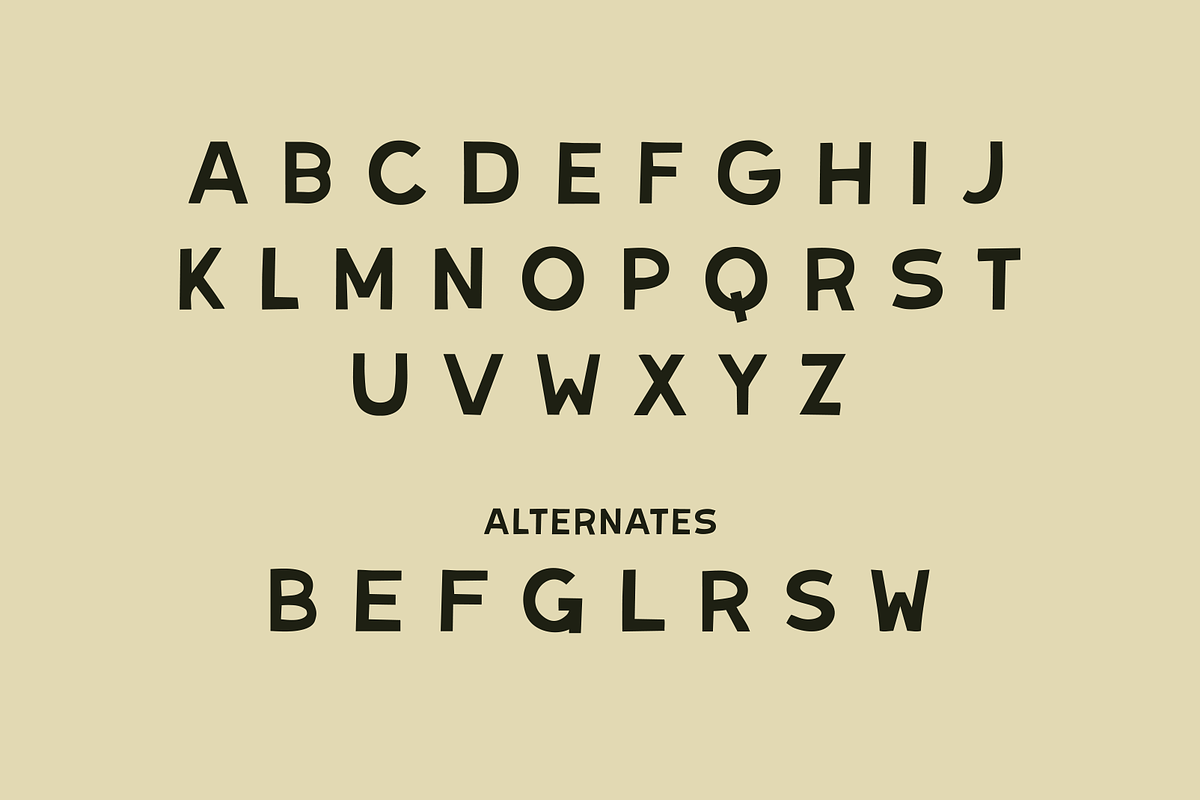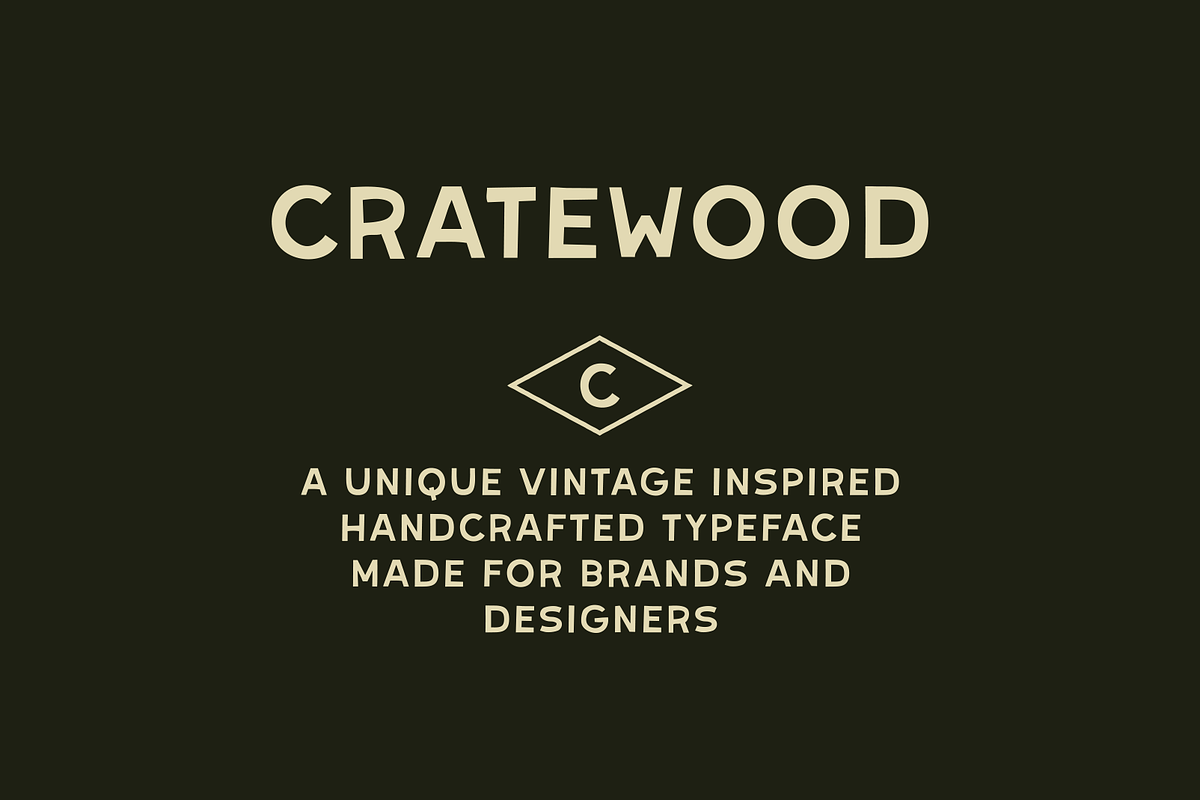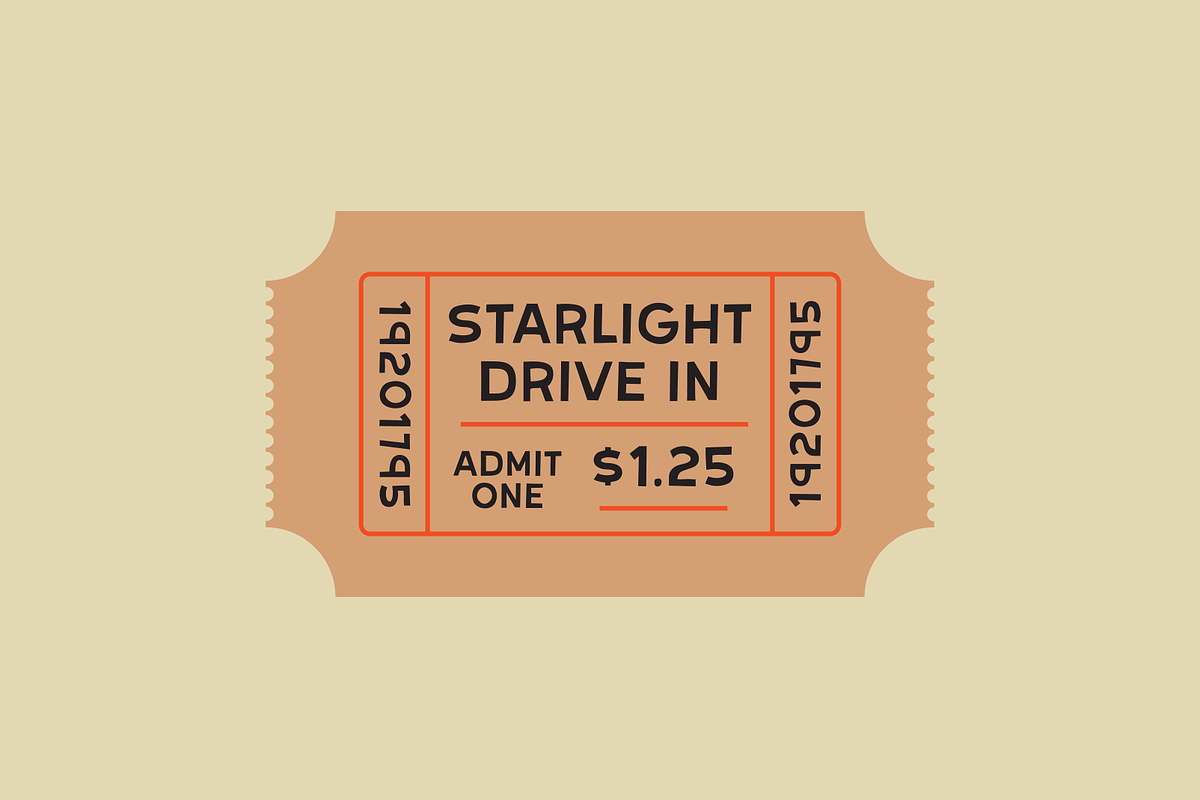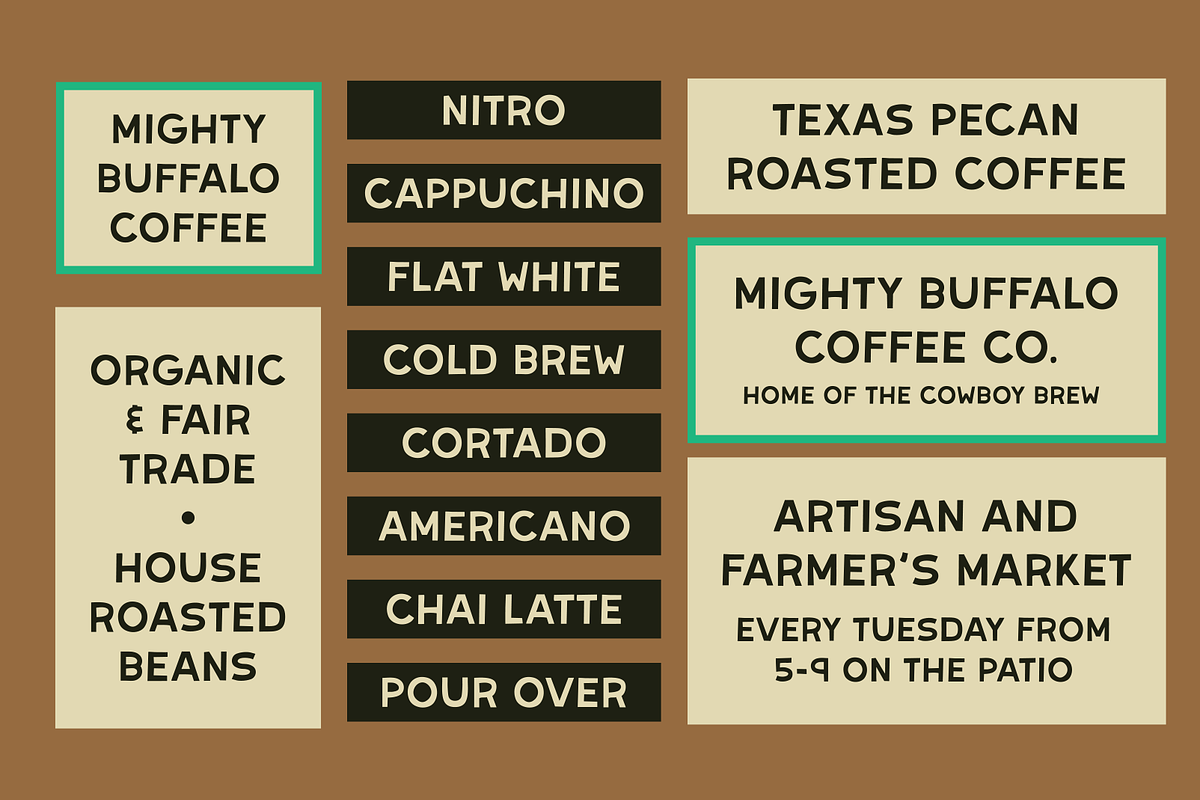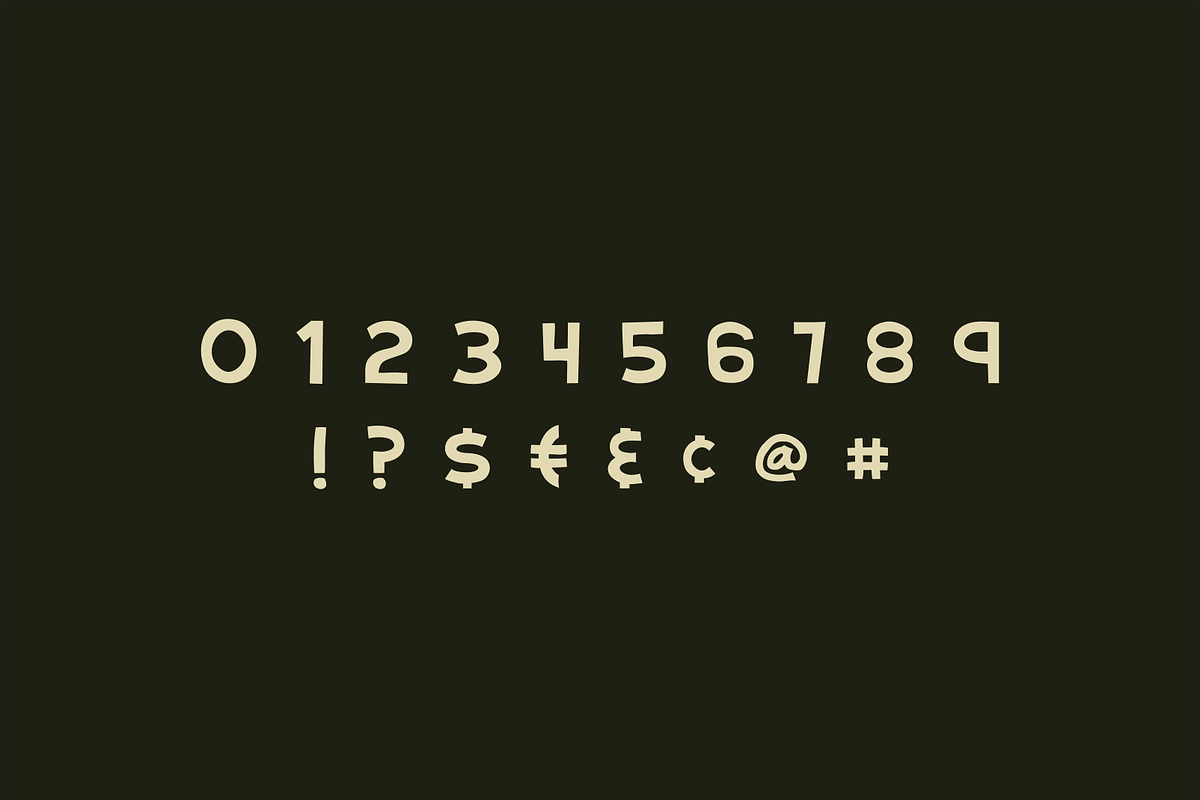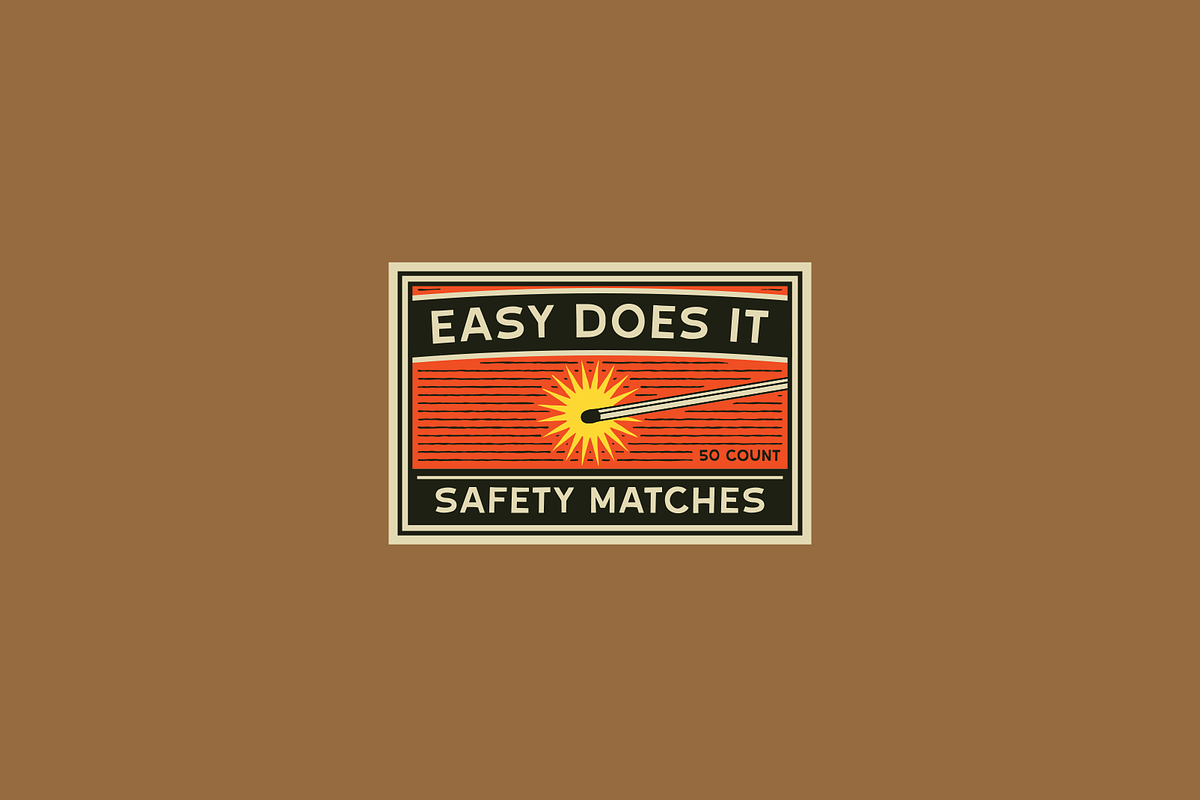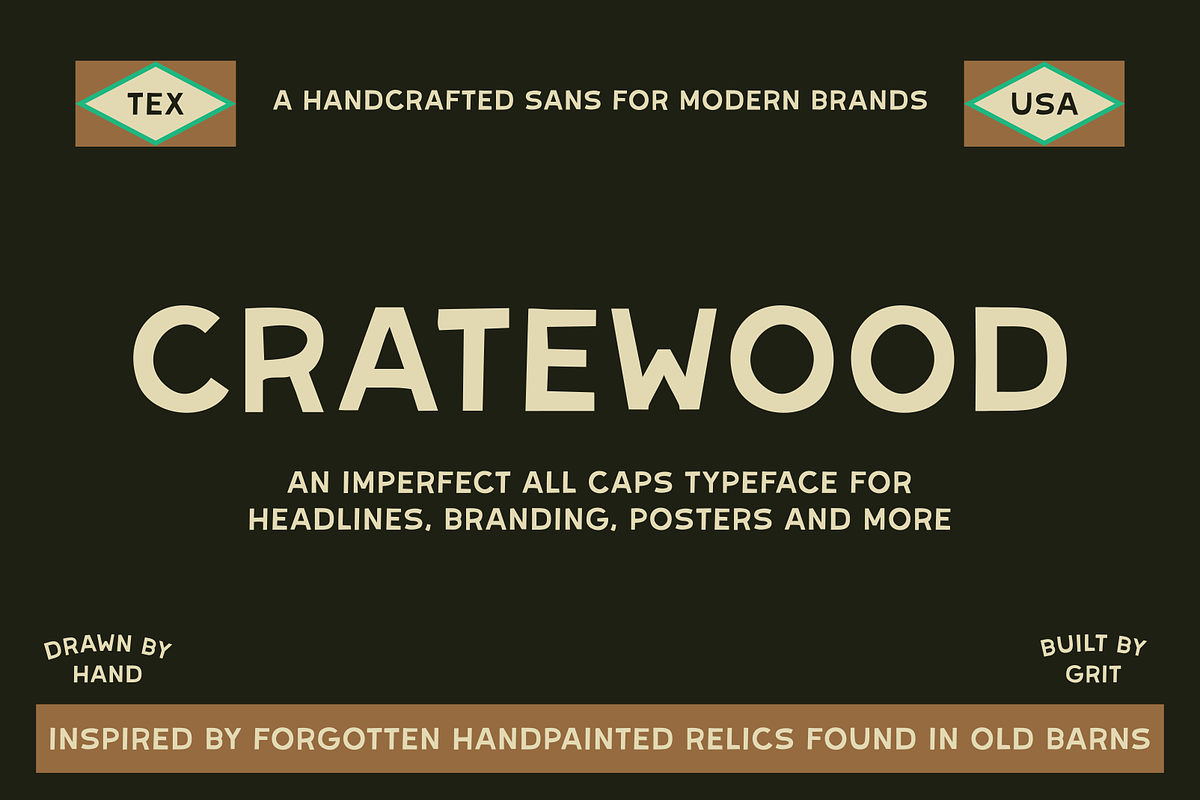
Cratewood by Ocotillo Design Studio
Cratewood- a hand-crafted sans serif.
Originally inspired by a set of old dirty and rusty handpainted parking signs found in my grandpa’s barn. The signs were the same but different, with subtle differences in the spacing and curves of the letters due to their handpainted nature. Cratewood is a hand made typeface that drew inspiration from not only the signs I found but also other handcrafted relics now forgotten. The typeface has all the imperfections and uneven lines one may find on a handpainted crate or sign.
All caps, with basic punctuation and a handful of alternates. Great for branding, posters, signs, and more.